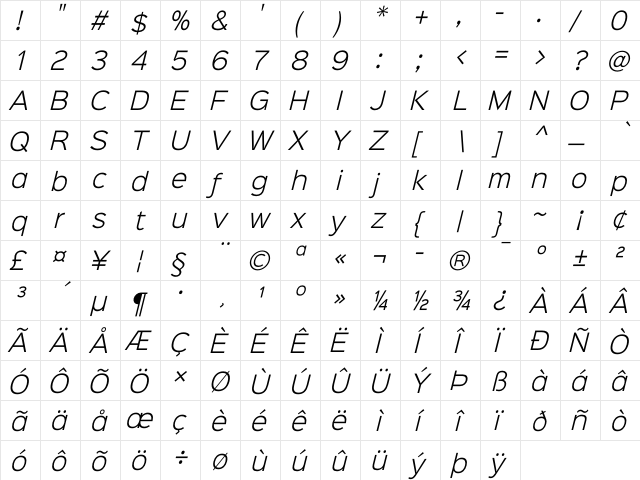
Sinkin Sans 300 Light Italic Regular Font Preview
| Designer | Keith Bates |
| Copyright | Sinkin Sans 300 Light Italic by Keith Bates 014 https://www.k-type.com Sinkin Sans is a simple, pleasantly proportioned sans serif with tiny, inconspicuous notches that sink into vertical strokes adding highlights to congested corners. |
Design Context for Sinkin Sans 300 Light Italic Typeface
Sinkin Sans 300 Light Italic offers clean, dependable letterforms without strong stylistic allegiance, making it a practical choice for designers who need flexibility. The dynamic lean of this cut emphasises speed and emphasis in any layout. The delicate stroke weight brings airiness and refinement to layouts.
Pro Tip: Try Sinkin Sans 300 Light Italic for annotation and caption copy alongside an upright companion — the contrast in angle creates a dynamic but ordered typographic system.